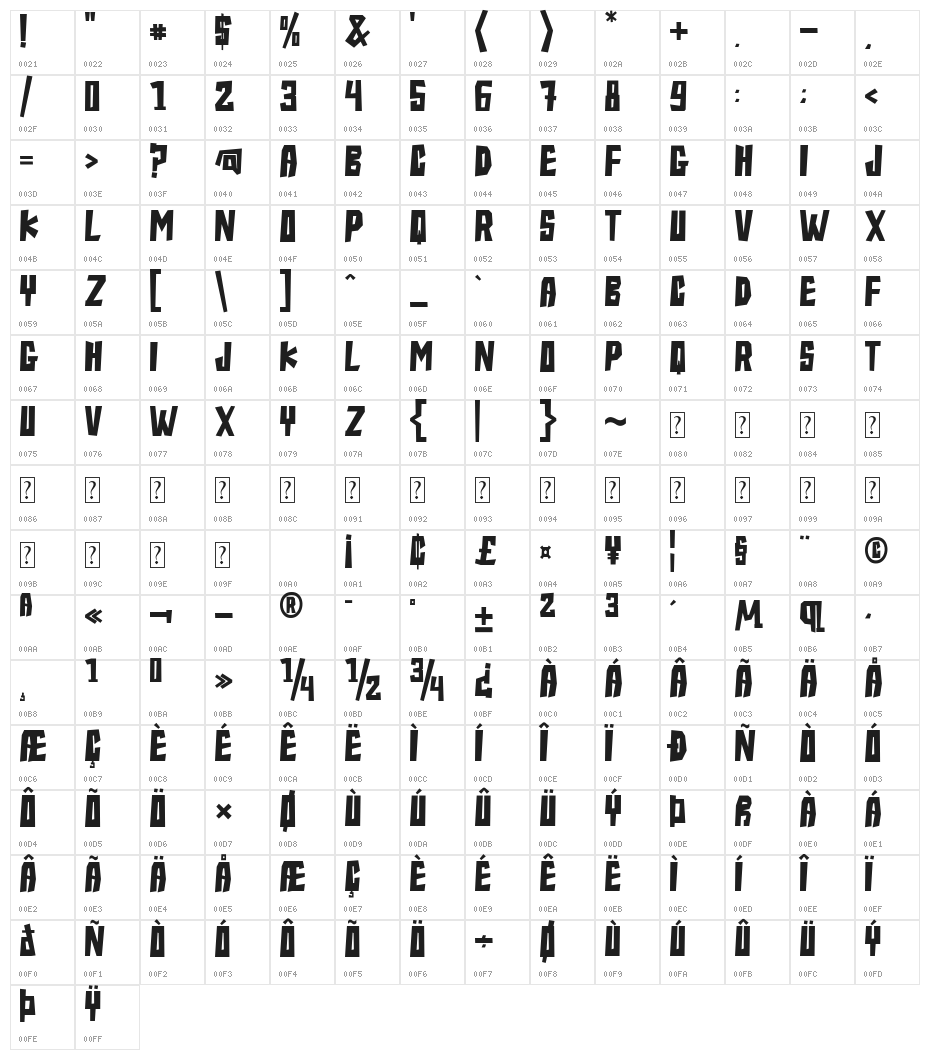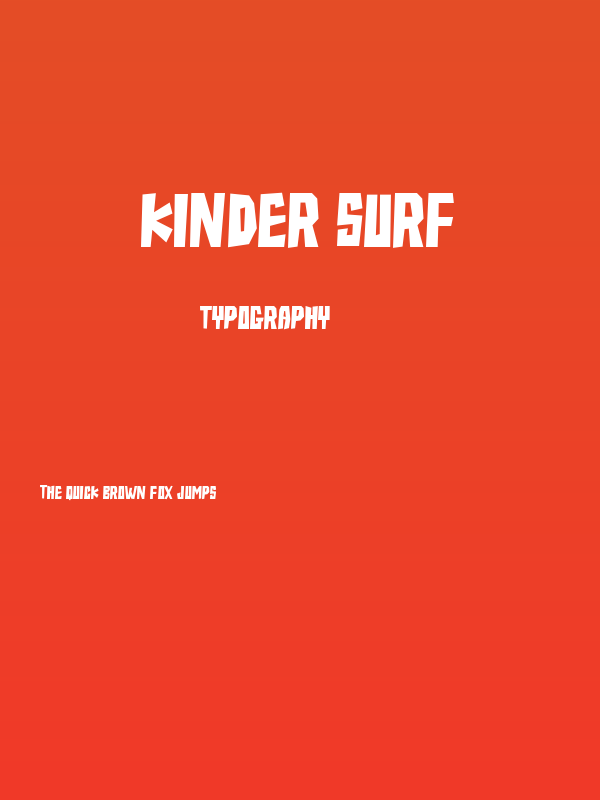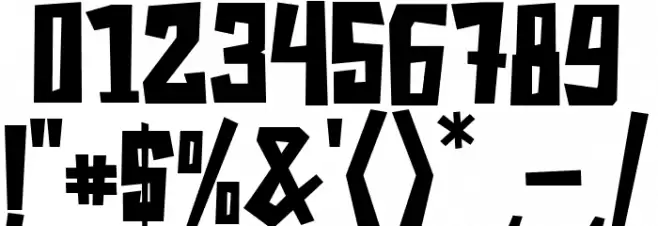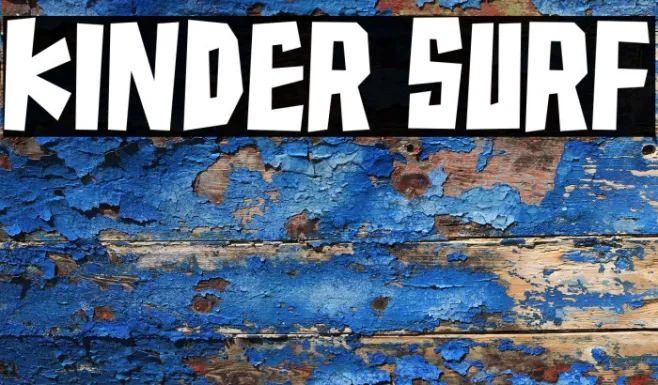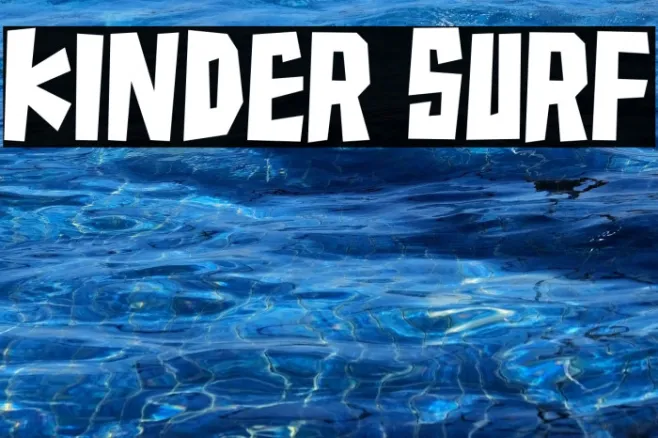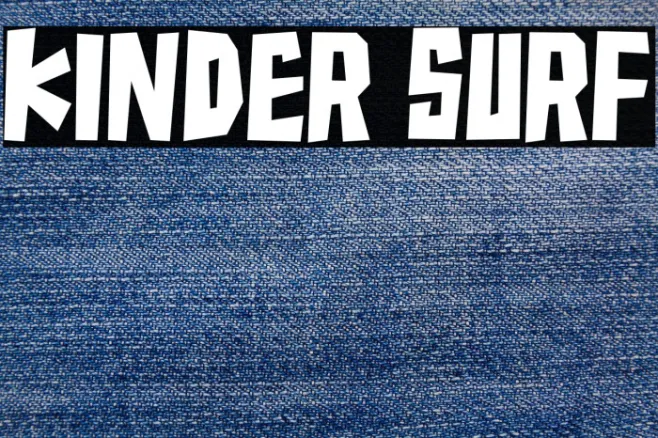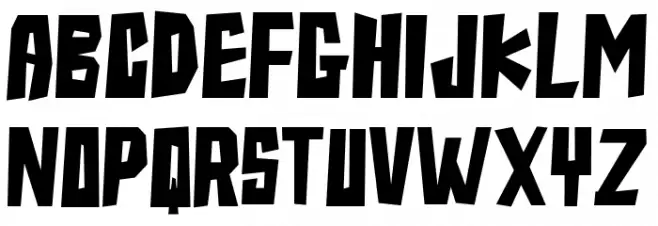
Kinder Surf Font
Kinder Surf Description
A bold, angular display font with a playful and dynamic style, featuring irregular shapes and varying stroke widths.
| Overall Style | Playful, Dynamic |
| Proposed Projects | Posters, headlines, branding, and playful designs. |